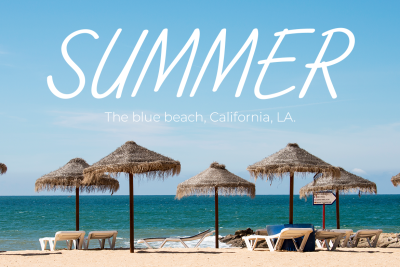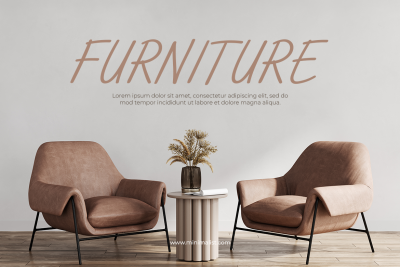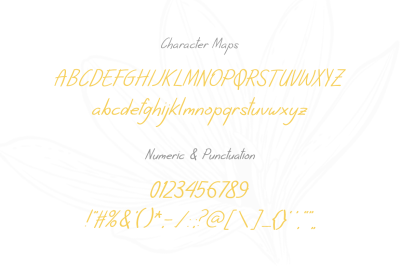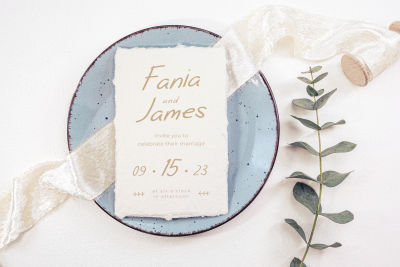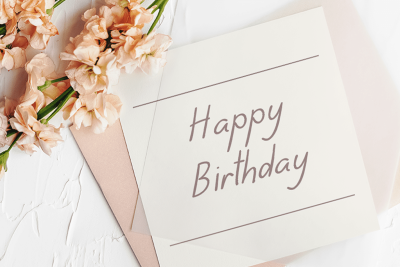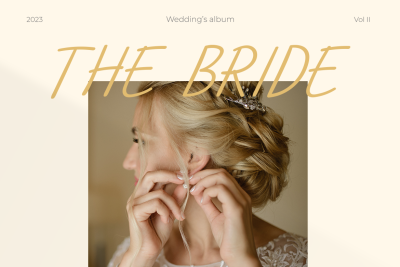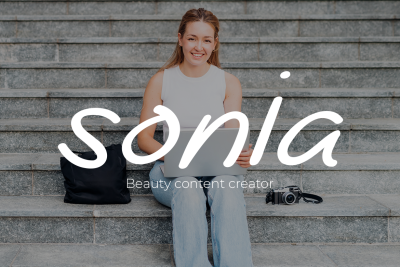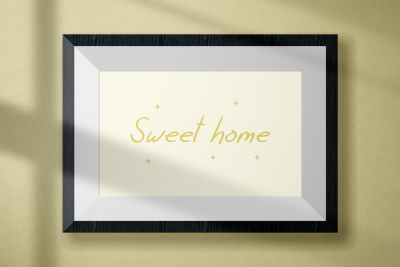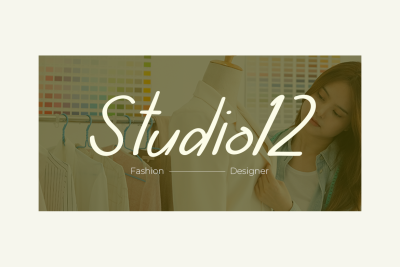
Handwriting Font Sanctuary is a beautifully crafted script font that exudes warmth, elegance, and a soothing handwritten feel. Designed with smooth curves and delicate strokes, this font captures the essence of handwritten calligraphy while maintaining excellent readability. Because of its flowing and natural aesthetic, it brings a sense of calmness and sophistication to any design. Moreover, its gentle and balanced strokes ensure that every word feels harmonious and visually pleasing.
Not only does Sanctuary look elegant, but it also pairs well with both serif and sans-serif fonts. As a result, designers can explore a wide range of creative possibilities without limitations. This versatility makes it suitable for various design projects, from modern branding to classic stationery. If you’re looking for a font that combines elegance, personality, and a relaxed charm, Sanctuary is an excellent choice.
Who Should Use Handwriting Font Sanctuary?
Handwriting Font Sanctuary is ideal for creatives and professionals who want to infuse their designs with a soft, handwritten elegance. Therefore, it is perfect for:
- Brand Designers & Small Businesses
- Perfect for logos, packaging, and product labels.
- Works beautifully on business cards, boutique branding, and luxury product designs.
- Since it creates a sophisticated and personalized identity, it is great for handmade and organic brands.
- Wedding & Event Planners
- Ideal for wedding invitations, RSVP cards, and event signage.
- Adds a refined and romantic touch to special occasions.
- Because of its elegant aesthetic, it complements menus, place cards, and thank-you notes perfectly.
- Content Creators & Social Media Marketers
- Enhances Instagram posts, Pinterest graphics, and YouTube thumbnails.
- Works well for lifestyle brands, bloggers, and wellness influencers.
- Additionally, it creates engaging and aesthetically pleasing quote graphics and digital marketing materials.
- Stationery Designers & Writers
- Great for journals, planners, greeting cards, and handwritten notes.
- Adds warmth to poetry prints, book covers, and letterheads.
- Furthermore, it creates a cozy and intimate feel for personal or professional stationery.
- Cafรฉs & Restaurants
- Complements menu designs, chalkboard signs, and promotional materials.
- Ideal for organic, homemade, and artisan food brands.
- As a result, it brings a welcoming and stylish atmosphere to cozy coffee shops and bakeries.
If you are looking for a handwriting font that radiates grace, warmth, and effortless beauty, Sanctuary is the perfect choice. Its timeless charm and versatility make it an essential font for designers, businesses, and creatives who appreciate elegance with a personal touch.